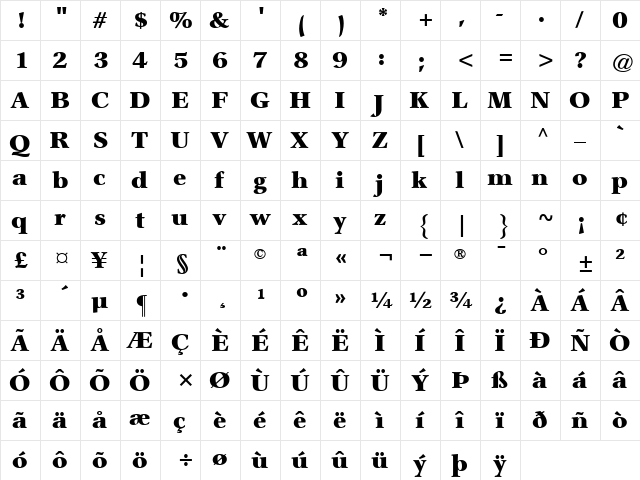
GarthGraphic-Black Black Font Preview
GarthGraphic-Black Black
Design Context for GarthGraphic-Black Typeface
GarthGraphic-Black takes a measured approach to typography — its balanced proportions and neutral character make it a reliable workhorse for both digital and print work.